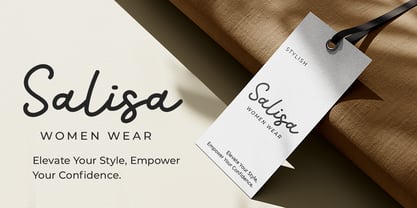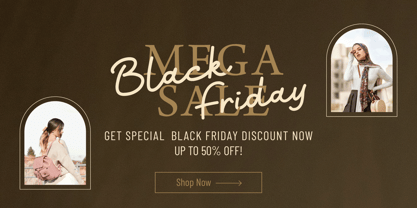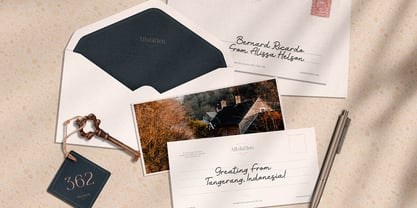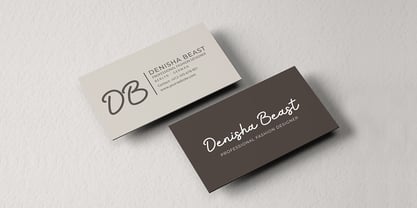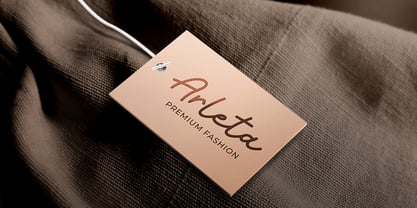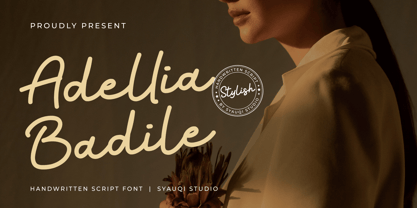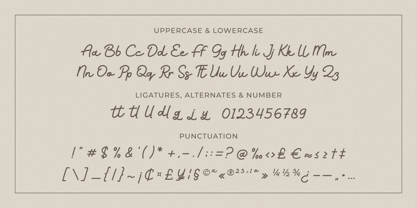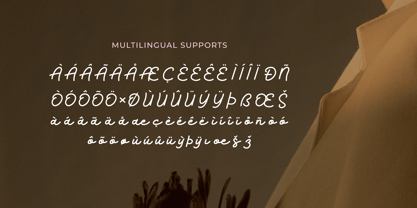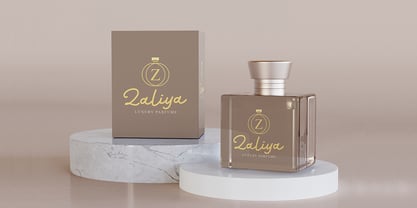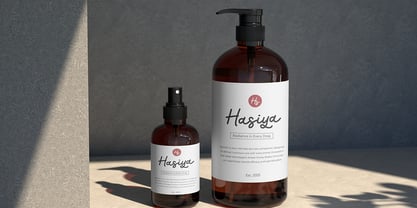
Adellia Badile
by Syauqi Studio
The Adellia Badile Font Family was designed by Muhammad Asroful Umam and published by Syauqi Studio. Adellia Badile contains 1 styles.
Adellia Badile - Handwritten Script Font for Fashion, Beauty, Wedding & More
Adellia Badile is a beautifully crafted handwritten script font designed to bring elegance and sophistication to your creative projects. With its smooth, flowing curves and natural charm, this font is perfect for adding a personal touch to your designs. Whether you're working on fashion and apparel branding, beauty and cosmetics marketing, wedding invitations, luxury perfume packaging, or jewelry designs, Adellia Badile will make your text stand out with a refined and classy look.
Ideal for branding, logos, packaging, and stationery, this versatile font also works wonderfully for candles, greeting cards, and more. Its delicate yet bold personality is perfect for projects that require a blend of modern elegance and timeless style.
Key Features:
• Elegant Handwritten Script Style
• Perfect for Fashion, Beauty, and Lifestyle Projects
• Ideal for Wedding Invitations, Jewelry, and Cosmetics
• Suitable for Branding, Logos, and Packaging
• High-Quality, Professional Design
• Easy to Use and Fully Customizable
Adellia Badile is more than just a font, it's a statement. Bring your designs to life with this stunning handwritten script that exudes luxury and style.